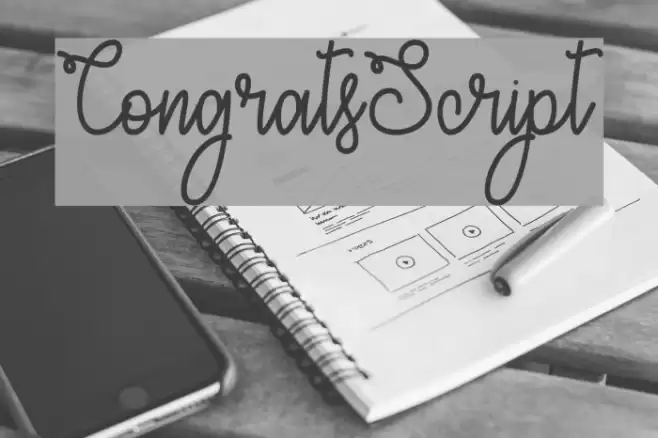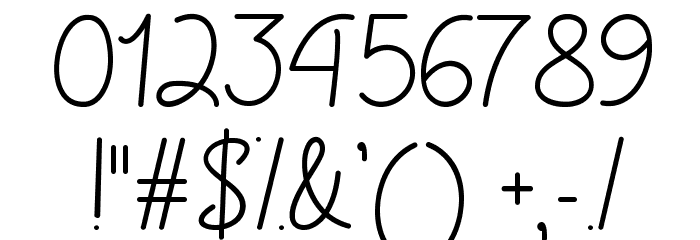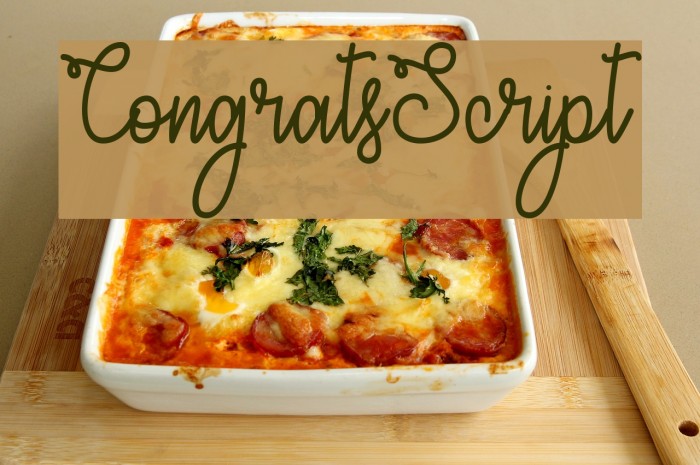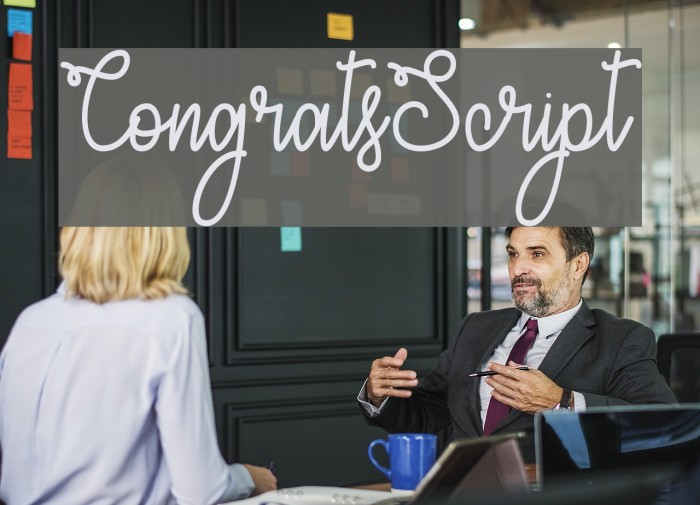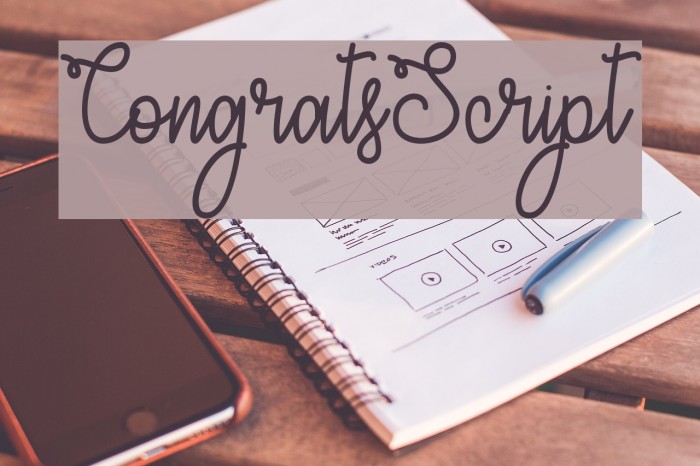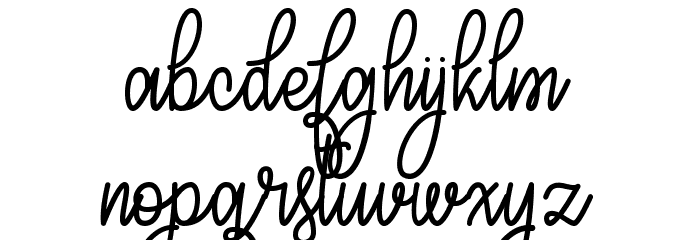
CongratsScript Font
CongratsScript Description
This font features a playful and whimsical script style, characterized by its flowing, cursive letters with decorative loops and flourishes. The uppercase letters are adorned with unique embellishments, adding a touch of elegance and charm. The lowercase letters maintain a consistent, smooth flow, enhancing readability while retaining a stylish appearance. The numerals are clear and distinct, complementing the overall aesthetic. Special characters are thoughtfully designed to match the font's playful nature, making it suitable for creative and celebratory contexts.
A playful and whimsical script font with decorative loops and elegant flourishes from Uncategorized fonts.
- Proposed Projects: Ideal for greeting cards, invitations, branding, and decorative projects that require a touch of elegance and playfulness.
- Use Case: Headlines, Logos, Invitations